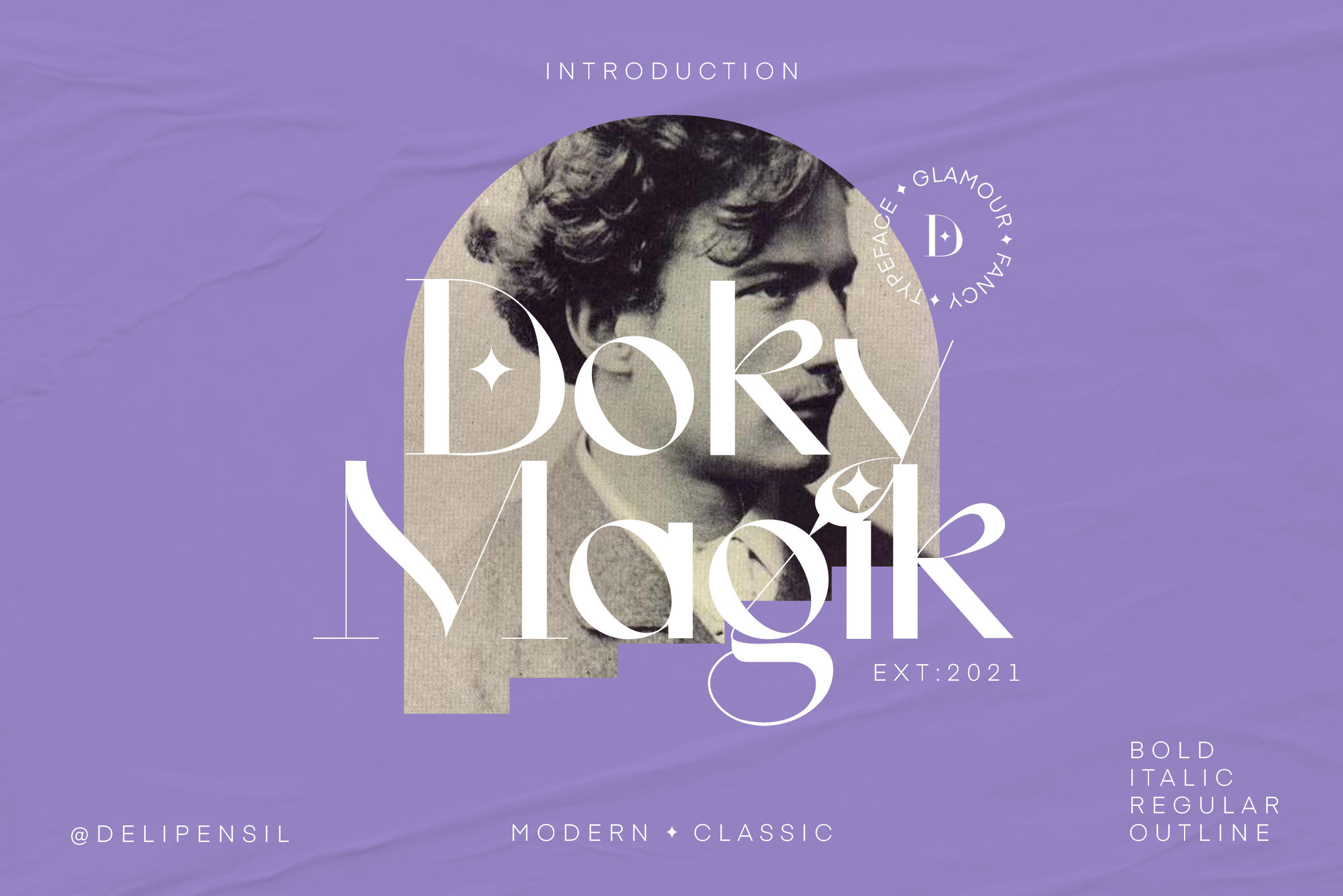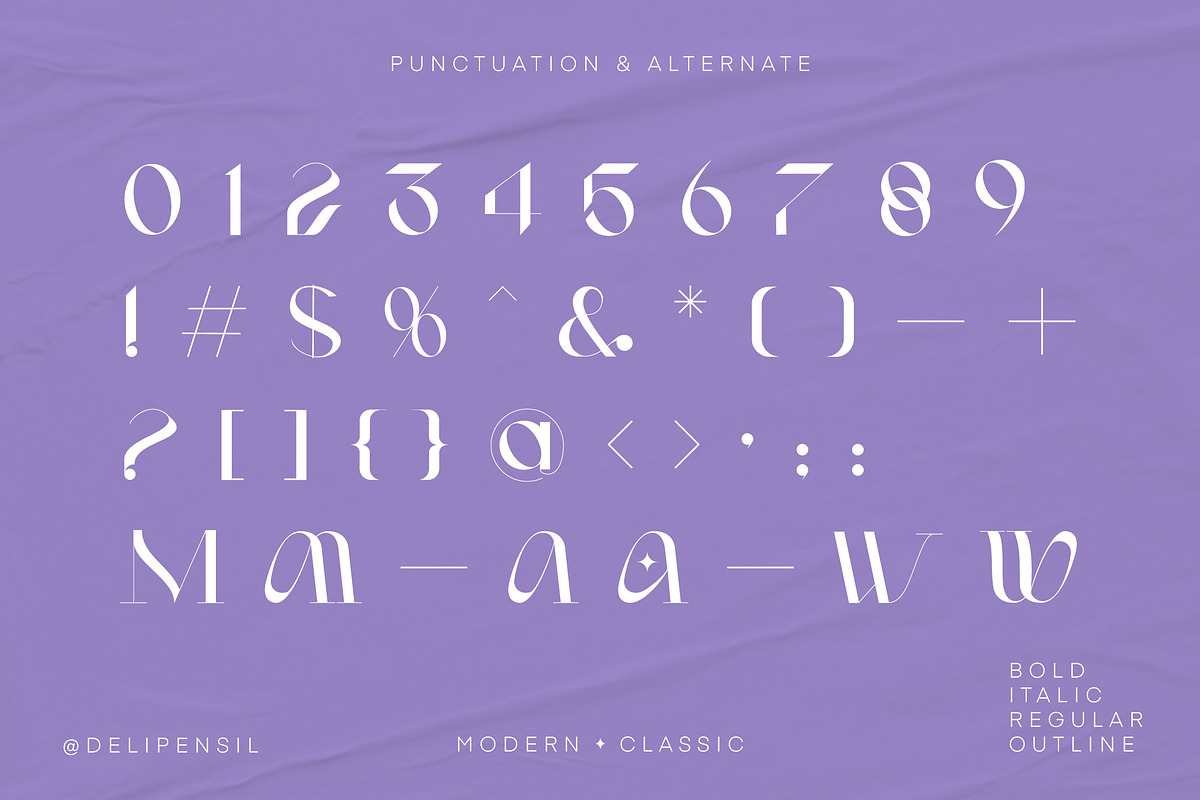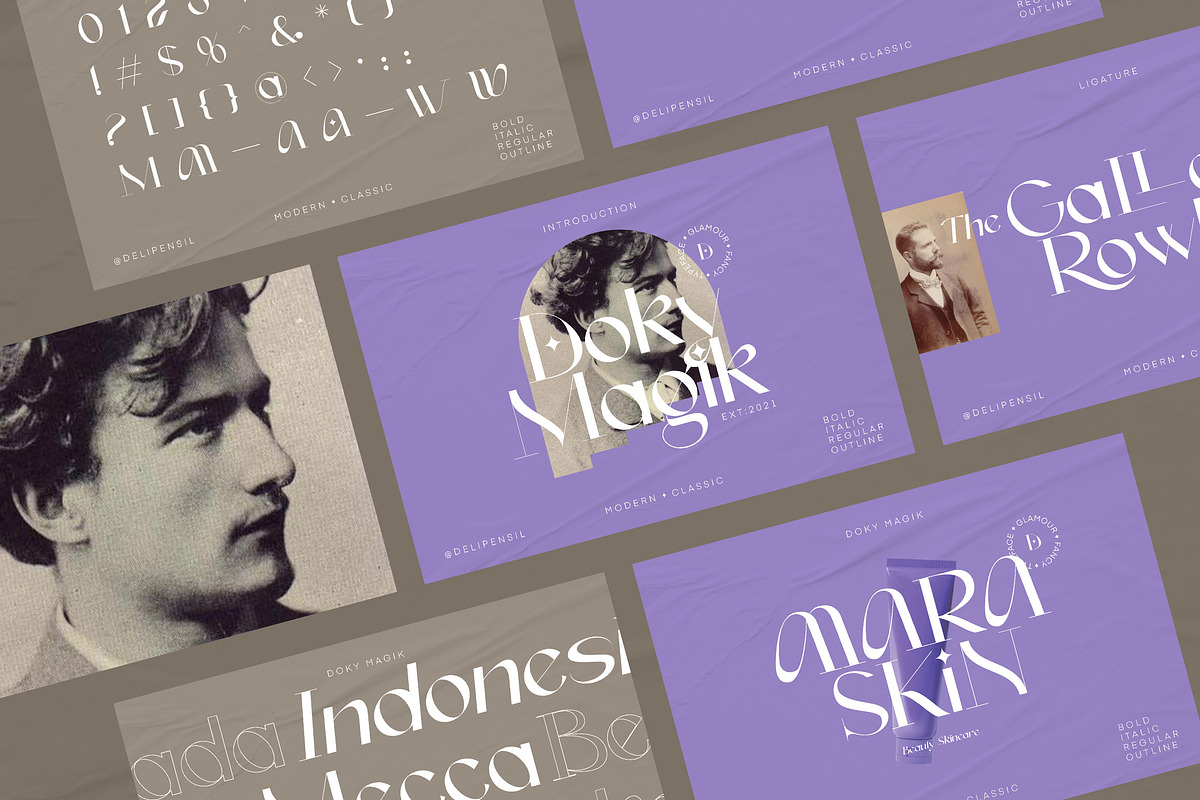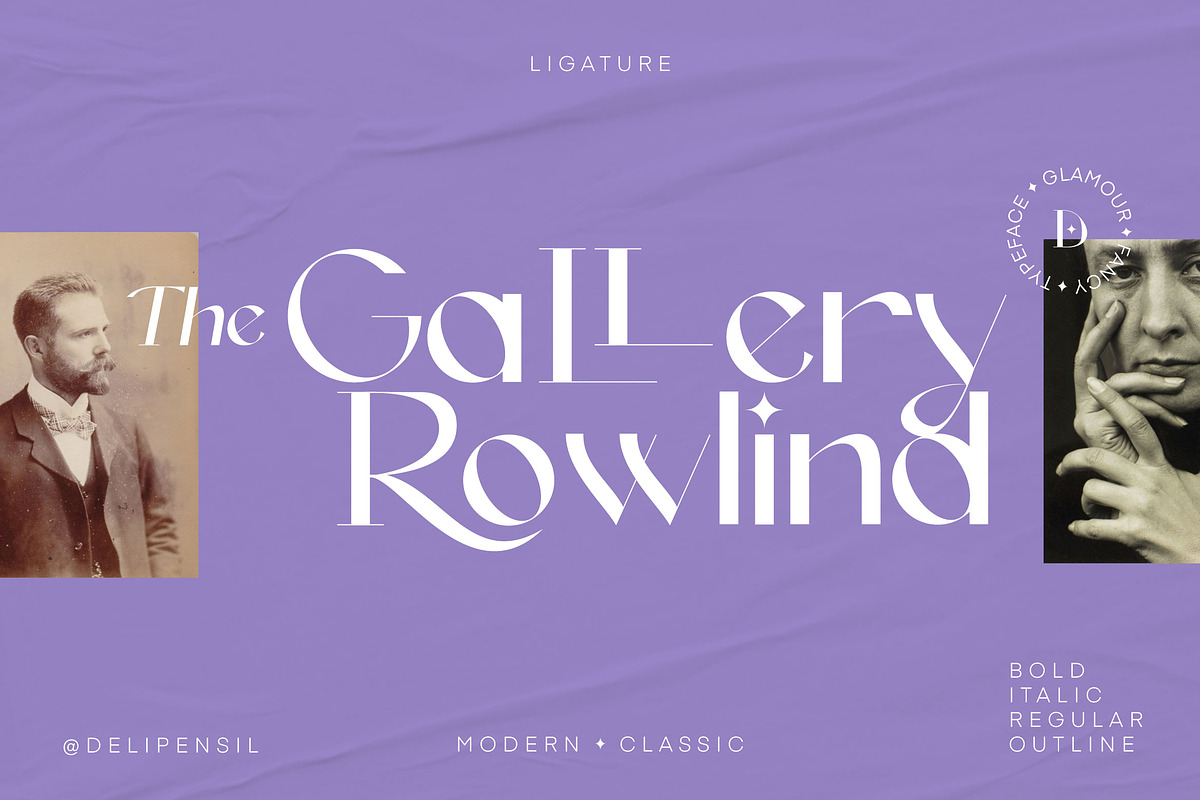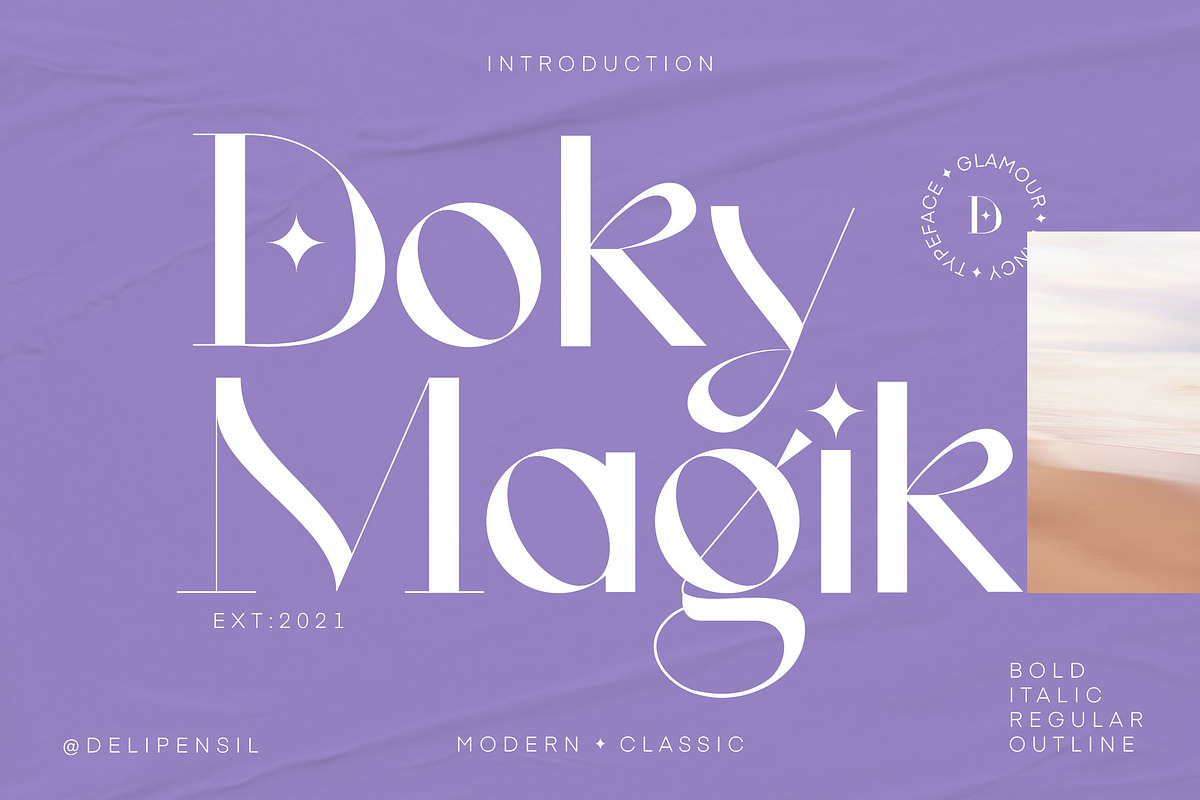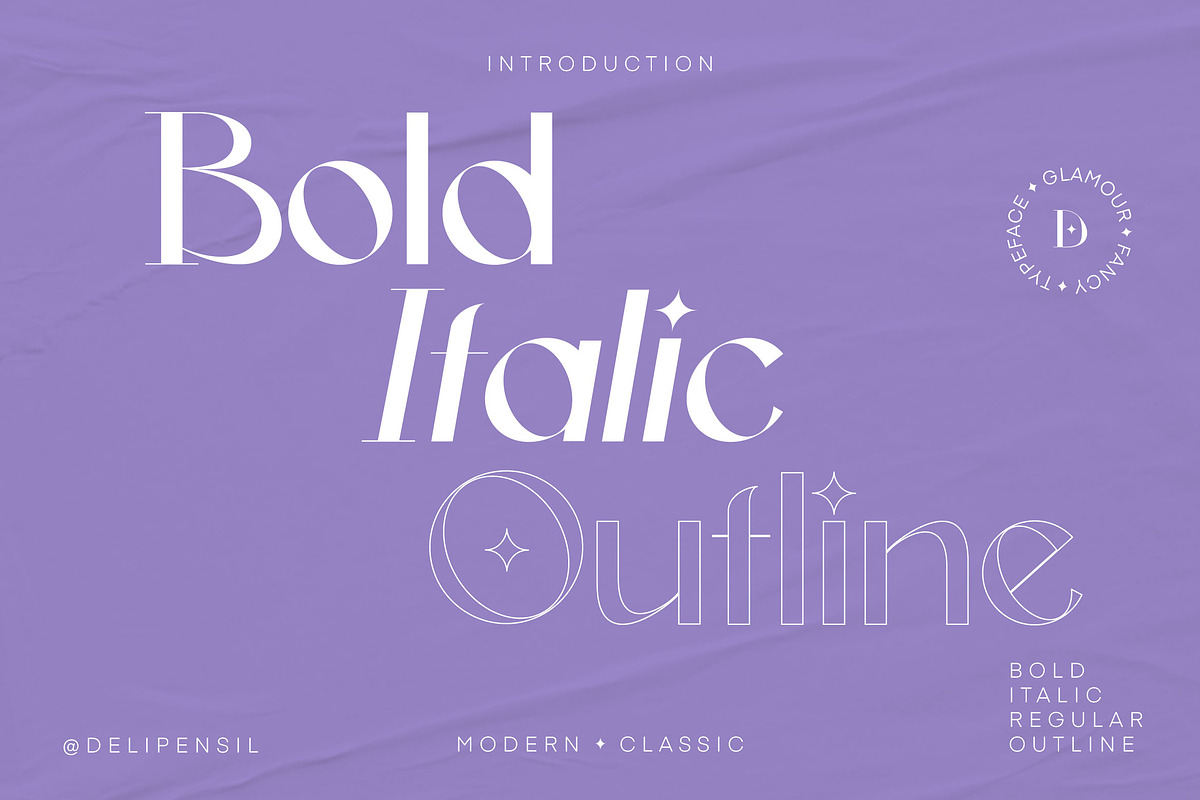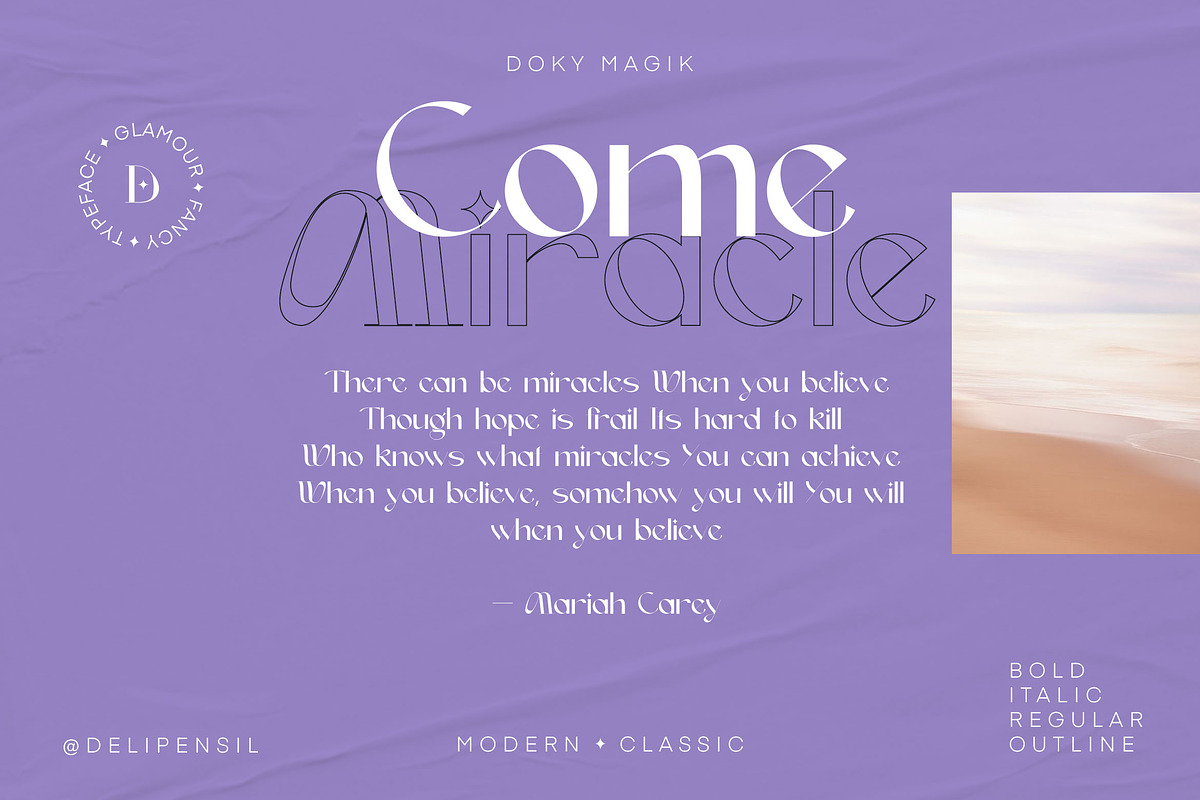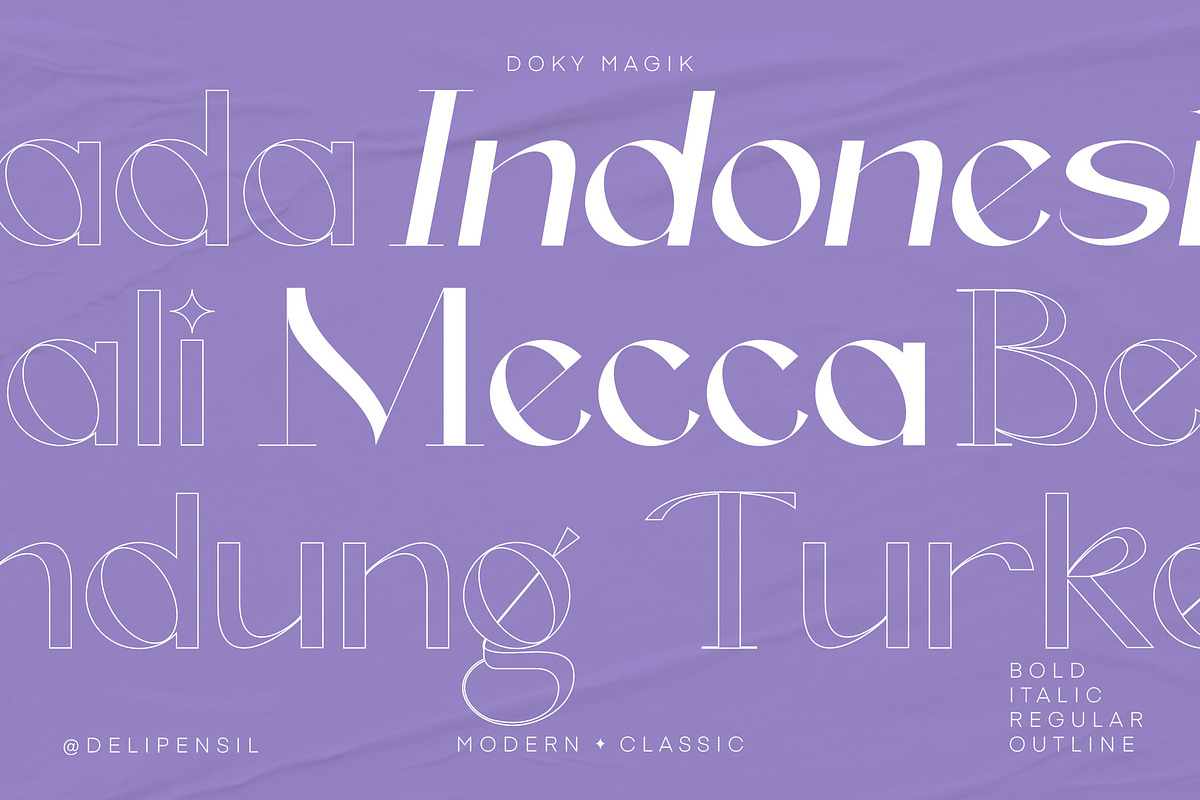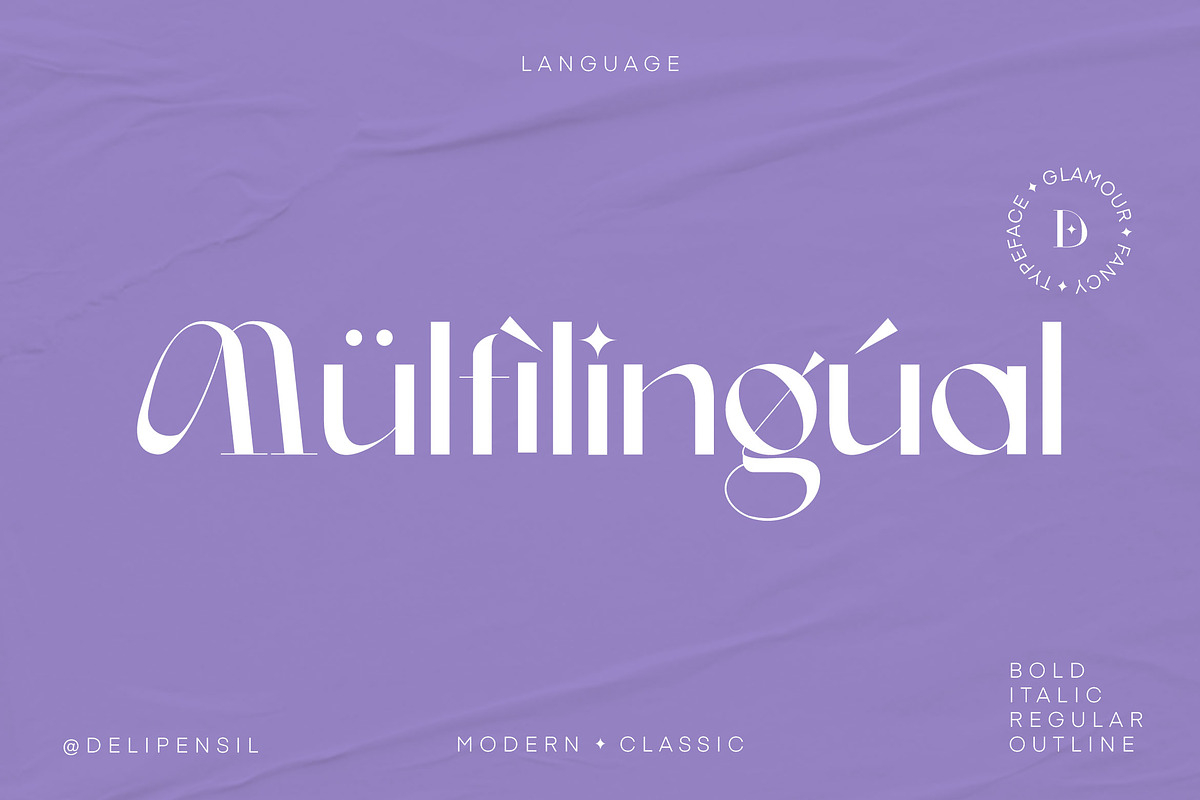
Doky Classic Modern Typeface
Bismillah, Introduction Doky Magik - A Beatiful Classic Modern Typeface
Beauty Serif font, clean classic and mindful , it combine in one font, use this font for anything beauty place for your logo, headline, cover book, magazine and many more
- Doky Numeral & Punctuation
- Doky Kerning Style
- Doky Ligature Style